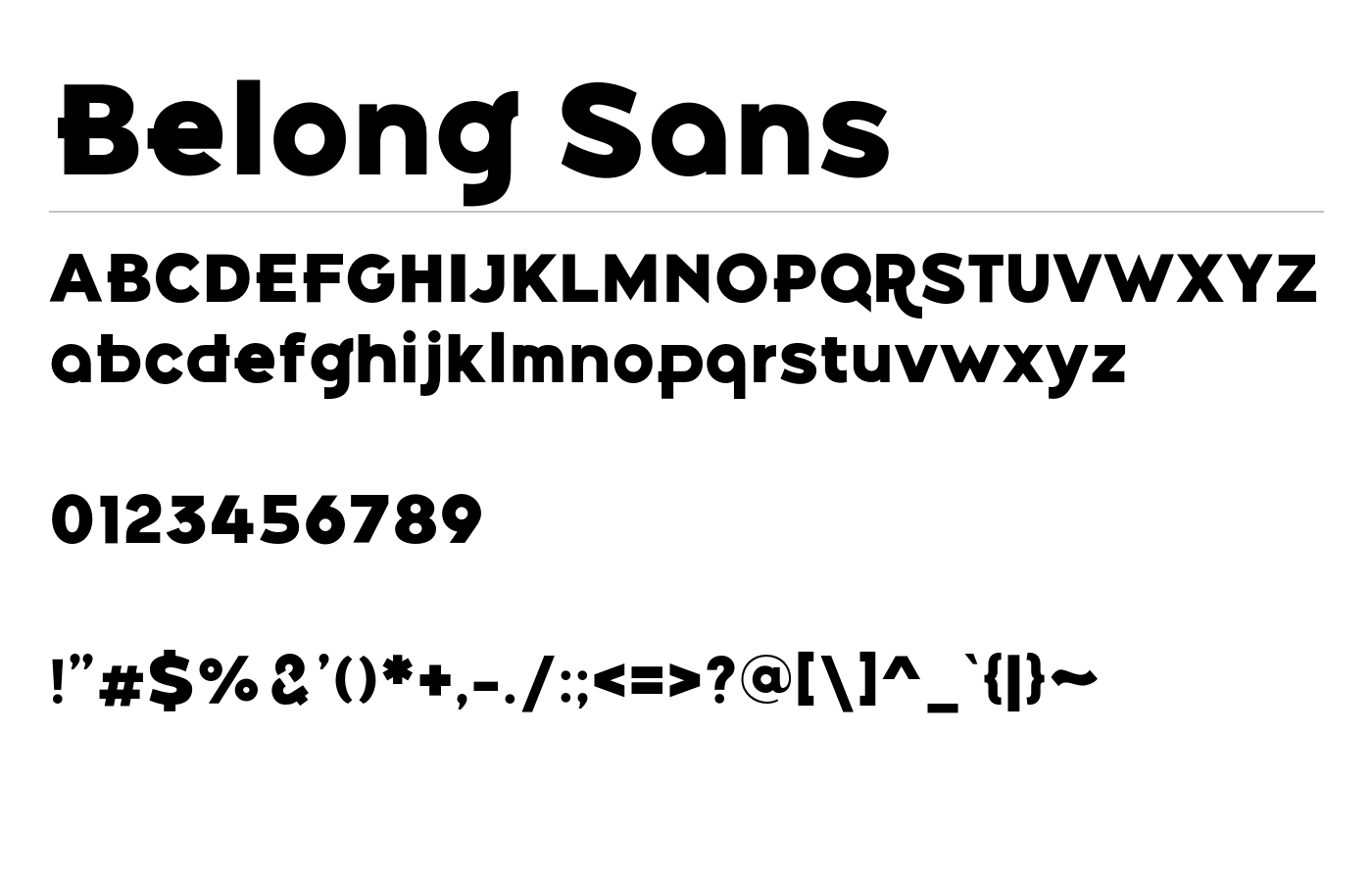
Belong Sans is a bold, geometric sans serif font with a strong presence and clean, rounded shapes that create a friendly yet modern feel. Its high x-height and uniform stroke width make it highly readable, while unique letterforms like the single-story 'a' and custom 'Q' tail add personality. This versatile typeface works well for branding, headlines, and digital interfaces where clarity and impact are essential.
Belong Sans Font
About Belong Sans Font
| Font family | Belong Sans Font |
| Designer | Ryul Davidson |
| Font subfamily | ExtraBold, Italic |